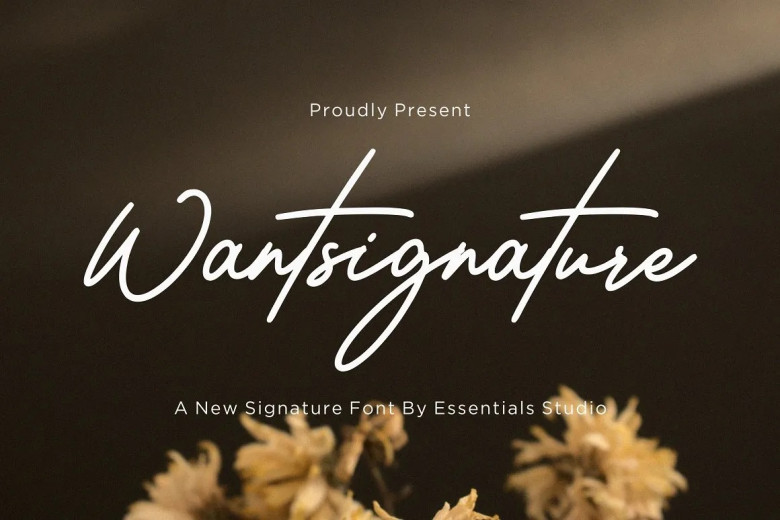
Wantsignature Font
Wantsignature is a premium script signature font designed specifically to add a personal touch. Perfect for packaging products, branding projects magazines weddings social media or simply conveying messages on a background surface! PUA encoded so you have easy access to all characters and strokes!
Wantsignature Signature Font